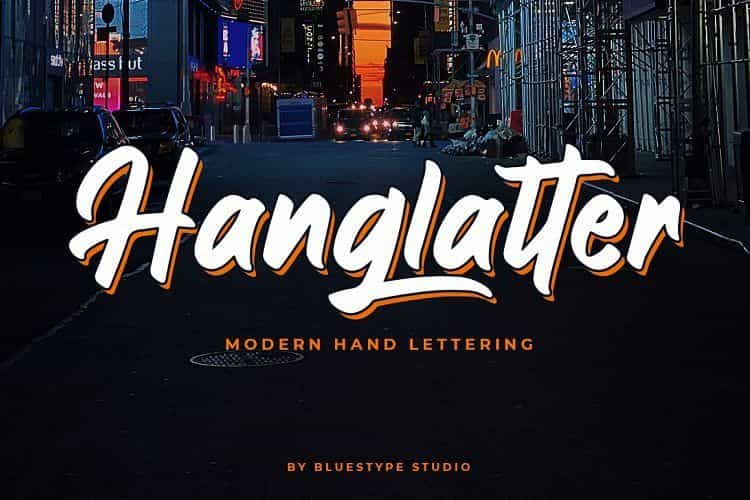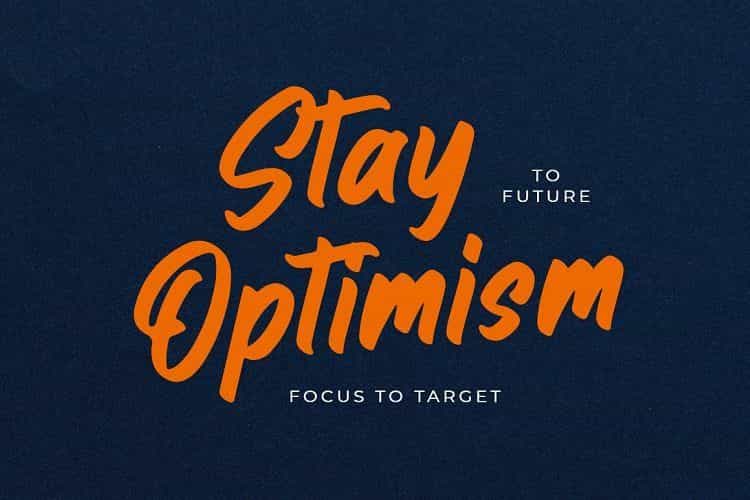
Hanglatter Font is derived from hand scratches to look natural and natural writings. It will be very interesting if the main style of the hand-lettering script is accompanied by a variety of Alternates (Capital letters) and Stylistic Sets which are very appropriate.